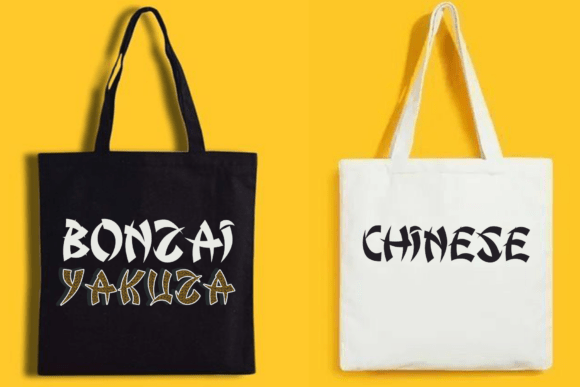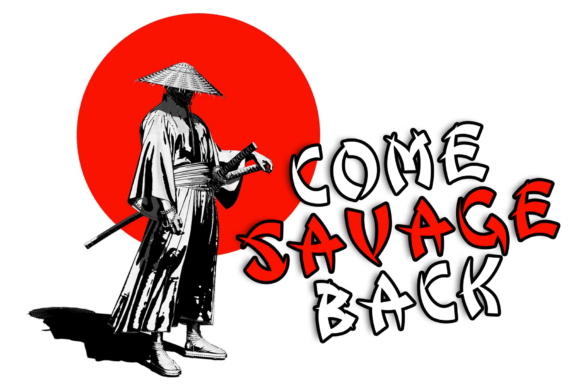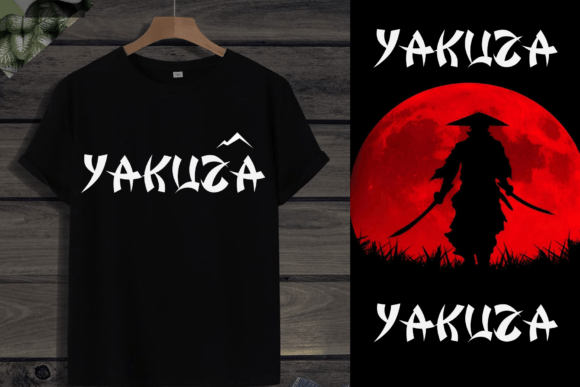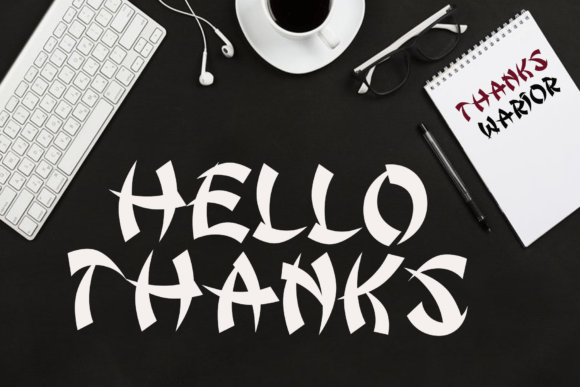
Introduction to Samurai Font
Have you ever found yourself staring at a blank page, desperate for the perfect font to bring your creative project to life? For designers, finding that elusive combination of style and sophistication can be a daunting task. But what if I told you that there’s a font that’s about to change the game?
Meet the Samurai Font, a striking and elegant typeface that embodies the essence of traditional Japanese calligraphy. With its balanced and varied strokes, this font is the perfect design resource for any project that demands high quality and attention to detail. Whether you’re working on a logo, a brochure, or a social media graphic, the Samurai Font is sure to elevate your design to new heights.
Key Features of Samurai Font
- High-quality vector design for a professional look and feel.
- Designed with a unique, bold aesthetic, perfect for adding a touch of edginess to any creative project.
- Resolution-independent, ensuring crisp and clear display regardless of the output size or resolution.
- Includes a comprehensive character set, making it suitable for a wide range of design applications.
Honest Review: Samurai Font
I recently had the chance to try out the Samurai Font, and I must say it’s a solid addition to any designer’s toolkit. This free download is a high-quality design resource that can add a touch of elegance to any creative project.
- ✨ Unique and bold design aesthetic, perfect for adding a touch of edginess to your project
- ✨ High-resolution files, ideal for printing or using on high-definition screens
- ✨ Transparent background, making it easy to integrate with your design
- ⚠️ Limited font styles and weights, which may not be ideal for complex typography projects
- ⚠️ Some users may find the font too bold or overpowering for certain designs
Overall, I’m impressed with the Samurai Font. It’s a great option for designers looking for a bold and unique font to add to their creative project. While it may not be perfect, it’s a free download that’s definitely worth checking out.
What is the recommended font size for optimal readability with Samurai Font?
The recommended font size for optimal readability with Samurai Font is between 12-24 points. However, this may vary depending on the specific design project and the intended audience. It’s always a good idea to test the font at different sizes to ensure the best results.